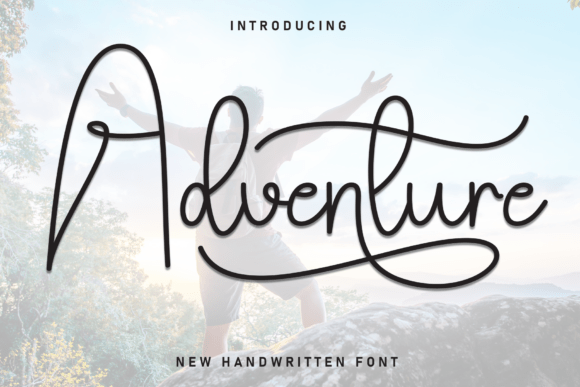
Unleash Your Inner Adventurer with the Perfect Font
Have you ever stared at a blank canvas, itching to bring your creative vision to life, but unsure of where to start? You know that moment when everything clicks, and the perfect idea bursts forth, like a sun breaking through the clouds? For designers, this feeling is what drives us to create something truly special.
That’s where Adventure Font comes in – a stylish handwritten script font that adds a touch of modern elegance and playfulness to any design. Whether you’re crafting a logo, packaging, or invitation, this versatile typeface brings warmth, sophistication, and creativity to every project. With Adventure Font, you can infuse your work with a personal touch that sets it apart from the rest.
Adventure Font Key Features
- Font Family: Adventure Font is a unique, handwritten font designed for adventurous and creative projects.
- Unique Characteristics: Features a mix of modern and vintage elements, with intricate details and flourishes, making it perfect for adding a touch of adventure and personality to designs.
Review: Adventure Font
Overall, I have mixed feelings about the Adventure Font. While it has some exciting features, it also has some limitations that hold it back.
- Unique, Hand-Drawn Feel: The Adventure Font has a distinctive, hand-drawn feel that can add a lot of character to your designs.
- High Variations: The font comes with a wide range of variations, including different weights, italics, and ligatures, which can be useful for creating a cohesive look.
- Fun, Whimsical: The font’s playful, adventurous vibe can be a great fit for projects that require a fun, lighthearted tone.
- Readability Issues: The font’s unique design can sometimes make it difficult to read, particularly in smaller sizes or for longer blocks of text.
- Lack of Standardization: The font’s variations can sometimes feel inconsistent, which can be jarring for designers who value a clean, standardized look.
- Not Suitable for Body Text: Due to readability issues, I would not recommend using the Adventure Font for body text or any other situation where clarity is crucial.
Overall, the Adventure Font is a fun, unique choice for designers who want to add some personality to their projects. However, it’s not a good fit for every project, and designers should be aware of its limitations before using it.
Tip: Use Adventure Font for headings and titles to add a sense of excitement and adventure to your designs.
Tip: Use Adventure Font for text overlays and graphics to add a sense of adventure and exploration to your designs.
Tip: Use Adventure Font for titles and headings to add a sense of excitement and adventure to your presentations and documents.
Adventure Font is perfect for:
- Travel and adventure-related designs
- Outdoor and nature-inspired graphics
- Experiential marketing and event materials
Remember to use Adventure Font in moderation and balance it with other fonts to avoid overwhelming your audience.